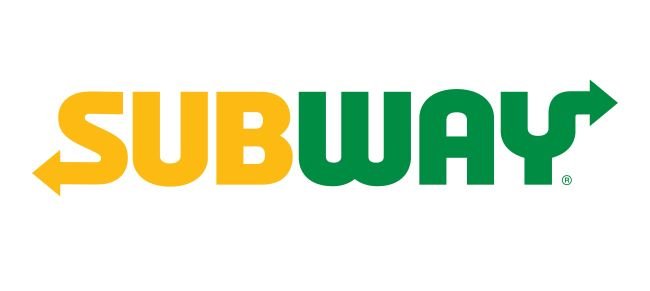
Subway font — originally based on Helvetica Neue Black Condensed before evolving toward a custom minimalist approach, with a free alternative available — is the typography of the Connecticut-born submarine sandwich franchise founded in 1965 that grew into one of the world’s largest restaurant chains by location count, operating on a model of fresh, customisable, relatively affordable sandwiches made in front of the customer. Helvetica Neue Black Condensed’s particular authority — the compressed, maximum-weight variant of one of the most ubiquitous corporate sans-serifs in history, here pressed into service for a brand whose yellow and green colour scheme is as instantly recognisable as its letterforms — communicates the brand’s core positioning: this is a fast food chain, but one that takes the word “fresh” seriously enough to let you watch the ingredients being assembled.